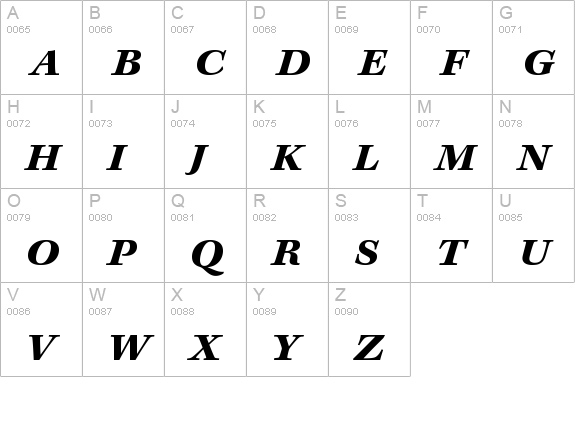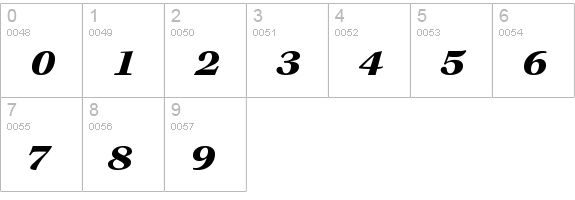
Kepler Std Bold Extended Italic Caption Font Details
Kepler Std Bold Extended Italic Caption is a strong, high-contrast, extended-width, italic variant in the Kepler typeface family \xE2\x80\x94 well suited to headlines, attention-grabbing titles, and strong calls-to-action.
The Kepler Std Bold Extended Italic Caption font is a visually striking and versatile typeface that effortlessly captures attention. Its bold and extended letterforms add a touch of modernity and strength to any design project. The italic styling adds a dash of elegance and dynamism, making it perfect for creating captivating captions and headlines. This font is not only visually appealing but also highly functional. Its extended letterforms provide ample space for displaying important information, ensuring readability even at smaller sizes. Whether it's for print or digital media, this font will make your content stand out with its unique and attention-grabbing appearance. One of the best aspects of the Kepler Std Bold Extended Italic Caption font is that it is available for free. You can easily download it from FontsMarket.com, a trusted source for high-quality fonts. Its freely accessible nature allows designers and creatives to incorporate this font into their projects without any hassle or budget constraints. Whether you're working on branding, advertising, web design, or any other creative endeavor, the Kepler Std Bold Extended Italic Caption font will add a touch of sophistication and style to your work. Its boldness, extension, and italic styling make it an exceptional choice for creating impactful and memorable designs. Download the Kepler Std Bold Extended Italic Caption font for free at FontsMarket.com and elevate your designs with its unique and captivating aesthetic.